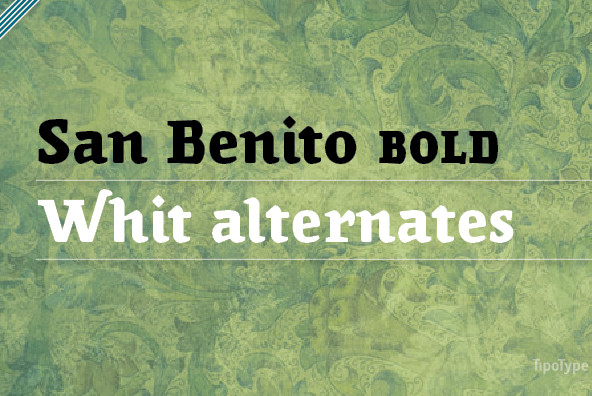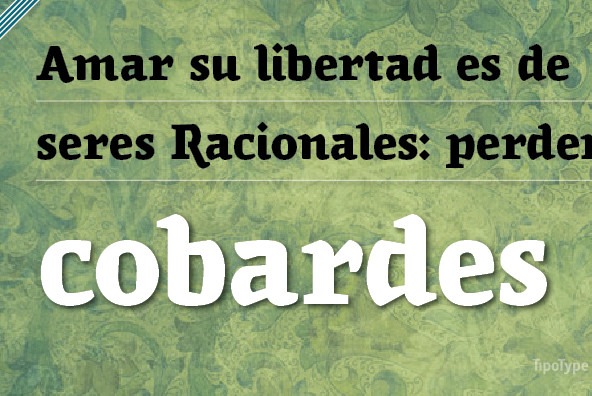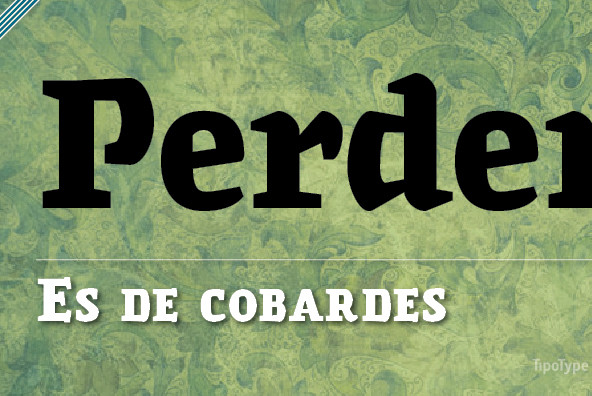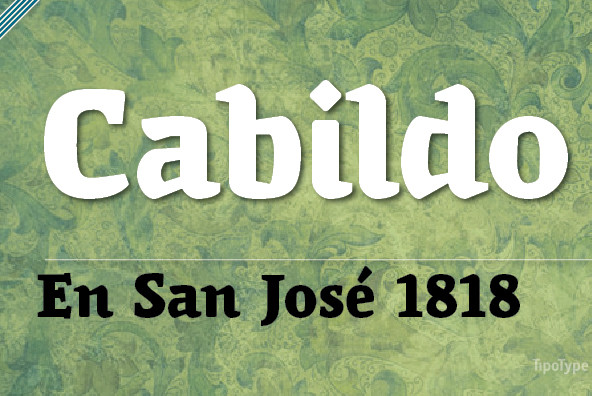
San Benito is a typeface inspired by the writings manuals robust middle age, but streamlined in a modular system It is ideal for powerful titles, specific and direct It has features of seriousness, tradition combines sobriety and personality....
San Benito is a typeface inspired by the writings manuals robust middle age, but streamlined in a modular system It is ideal for powerful titles, specific and direct It has features of seriousness, tradition combines sobriety and personality.